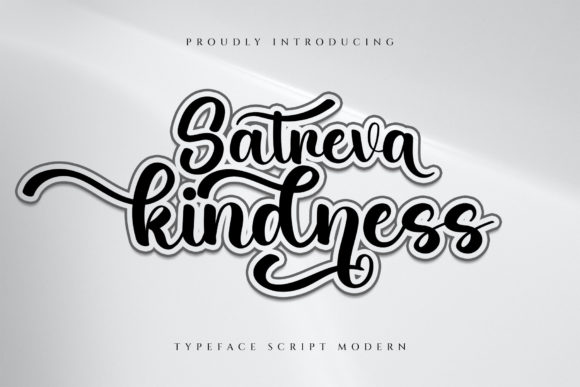
Unleash the Enchantment of Satreva Kindness: A Calligraphy Font That Will Elevate Your Designs
In a world of digital monotony, where fonts often blend into a sea of sameness, Satreva Kindness emerges as a breath of fresh air. This enchanting calligraphy typeface, crafted by the talented YanStudio, is a symphony of grace and elegance, promising to transform your design projects into captivating works of art. With its characters dancing along the baseline like delicate ballerinas, Satreva Kindness adds a touch of luxury and sophistication to every creation.
Immerse yourself in the world of Satreva Kindness and discover a font that is not just a tool, but an expression of your creativity. Let your imagination soar as you explore endless possibilities, from heartfelt wedding invitations to enchanting logos that leave a lasting impression. Whether you're a seasoned designer or just starting your creative journey, Satreva Kindness is your perfect companion, ready to elevate your designs to new heights.
Step into the realm of romance and sweetness with Satreva Kindness, a font that captures the essence of timeless beauty. Its flowing strokes and elegant curves evoke a sense of nostalgia, transporting you to a bygone era of handwritten letters and heartfelt expressions. Embrace the charm of Satreva Kindness and let your designs radiate a warmth and authenticity that resonate with your audience.